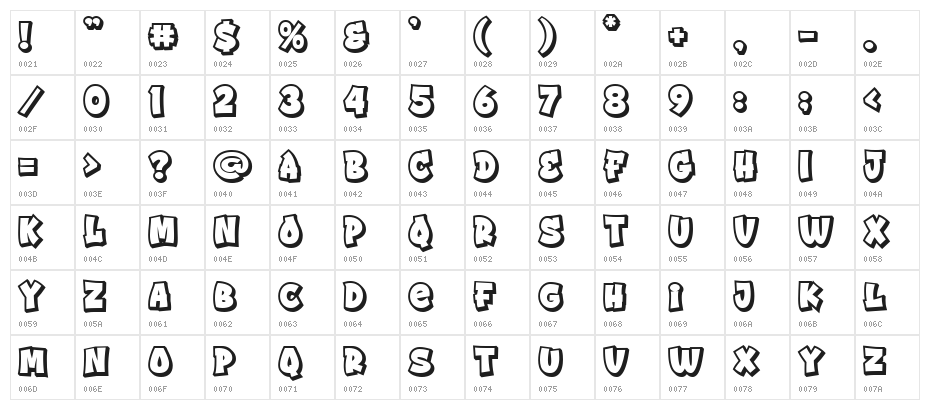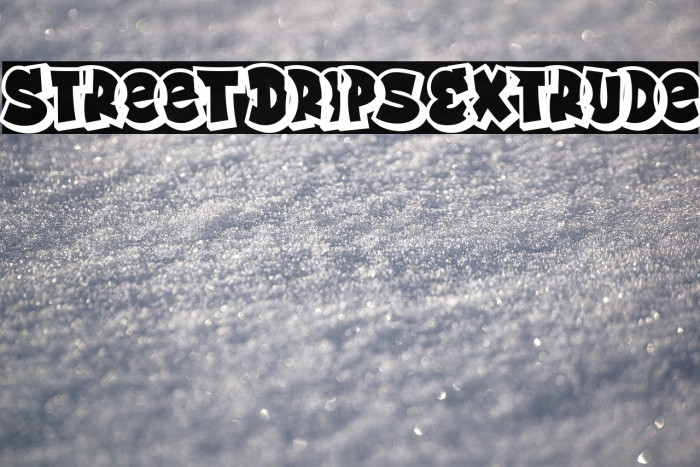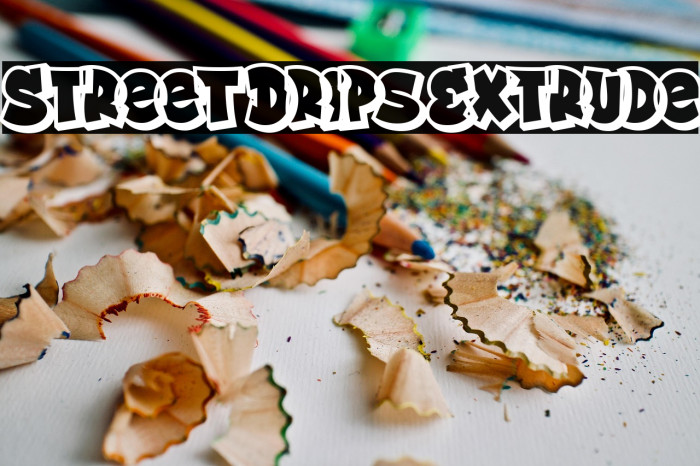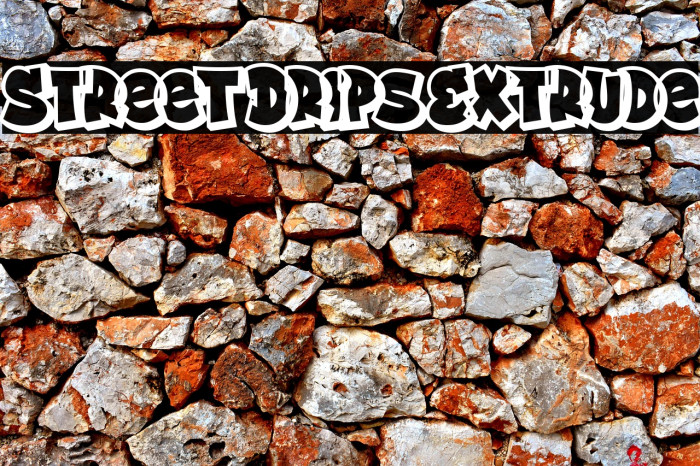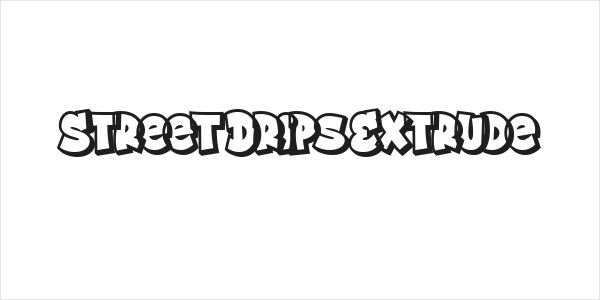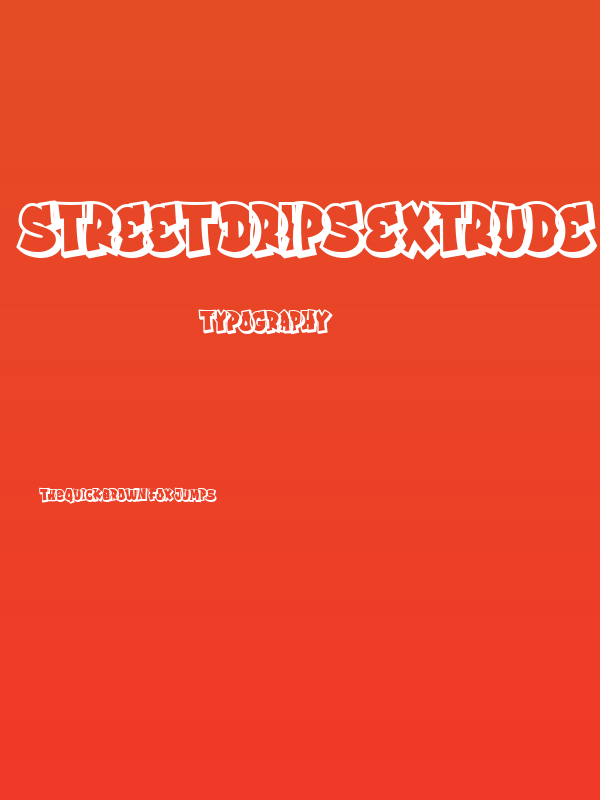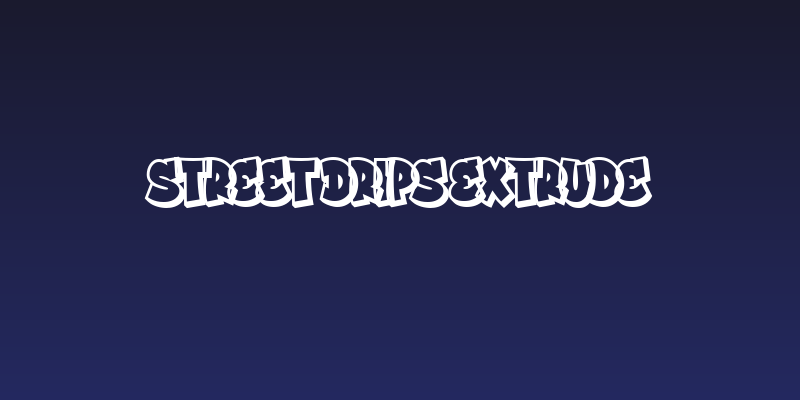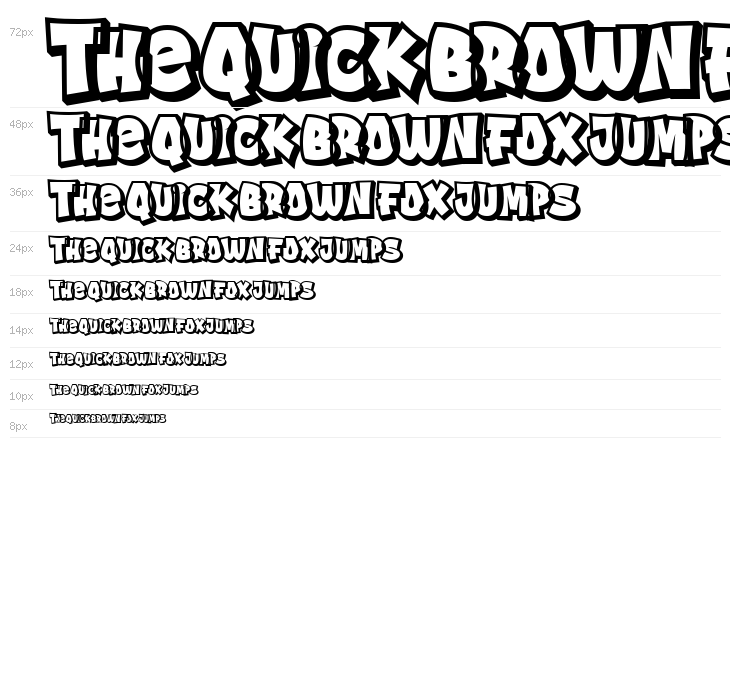
Street Drips Extrude Font
A bold, graffiti-style font with a three-dimensional extruded effect, featuring thick strokes and playful, irregular shapes.
Overall StyleUrban, Playful, Bold
Proposed ProjectsStreet art designs, posters, urban-themed graphics.